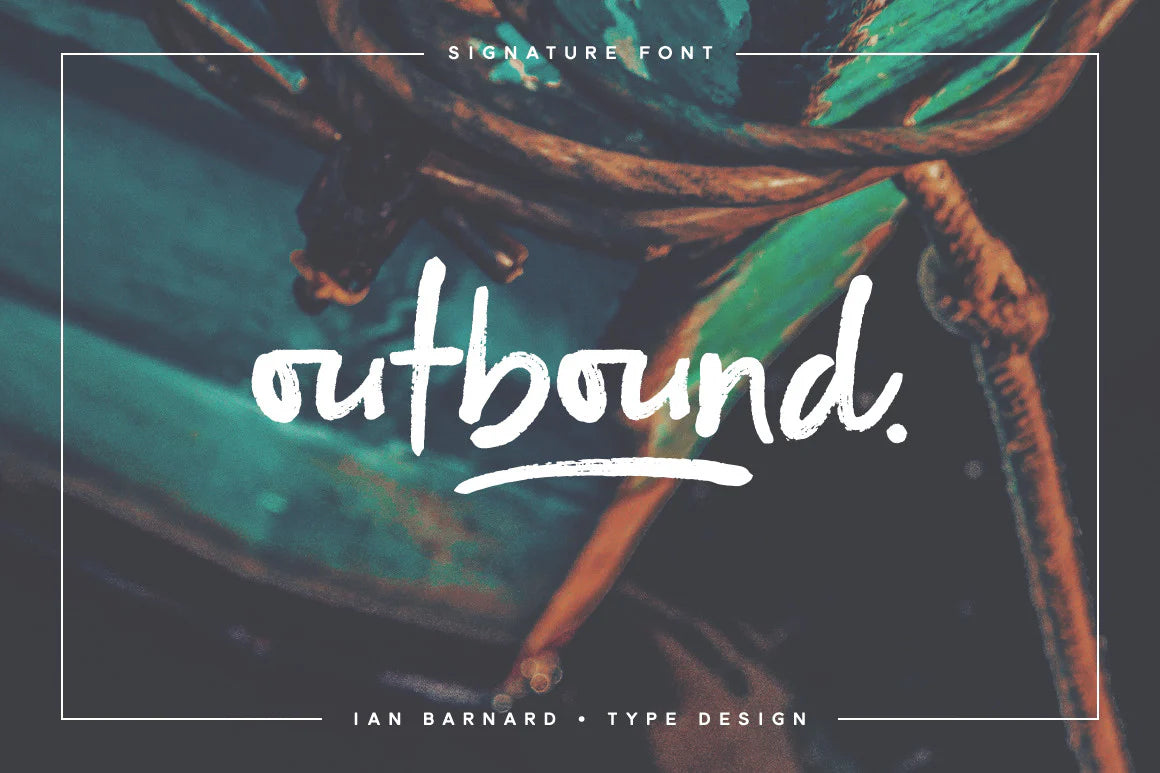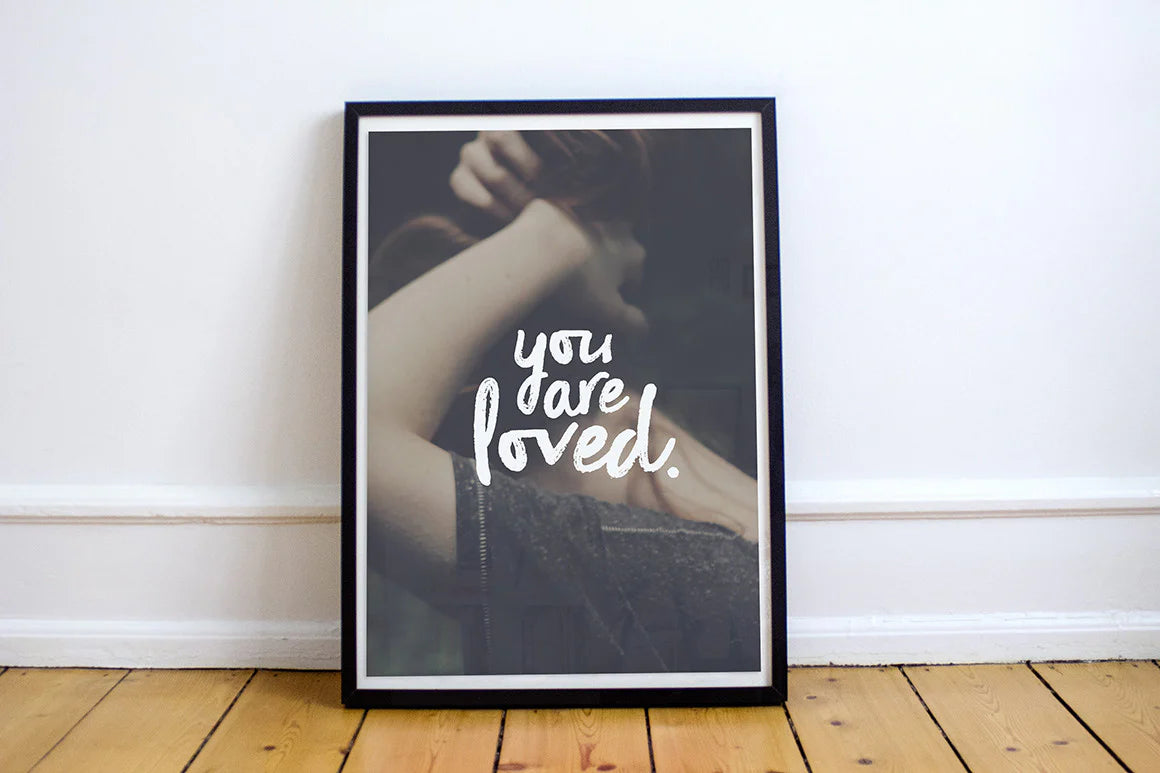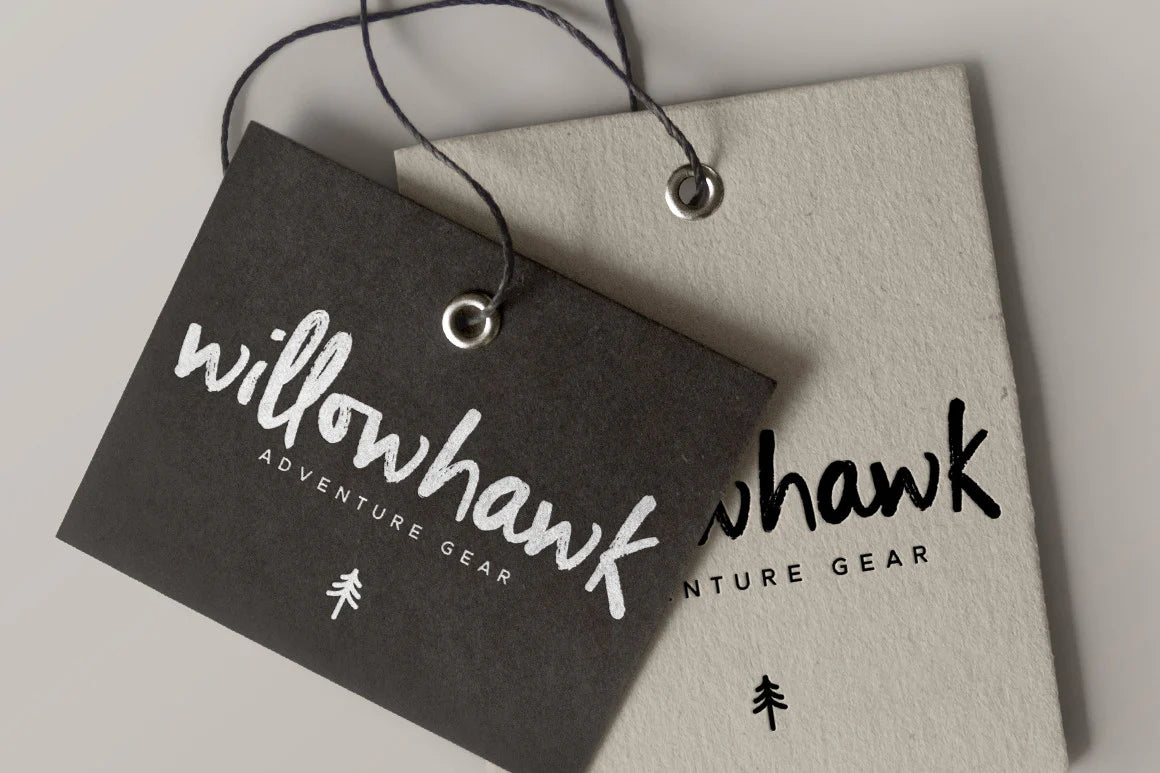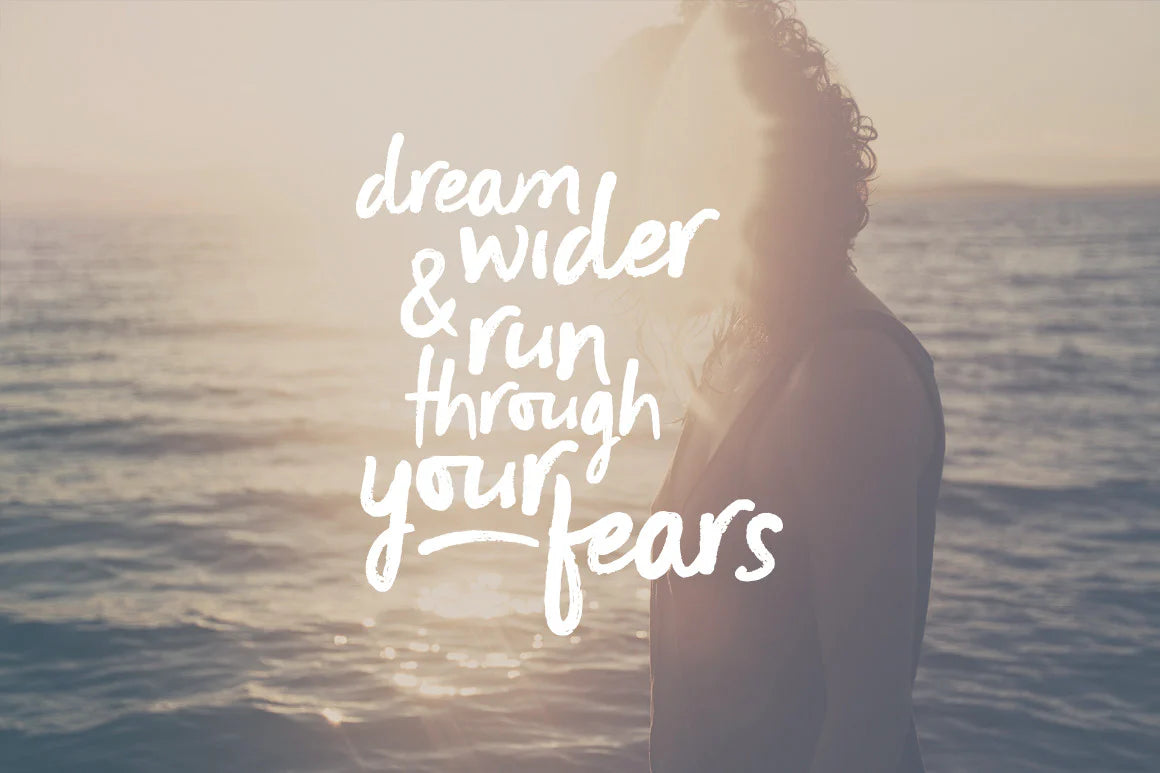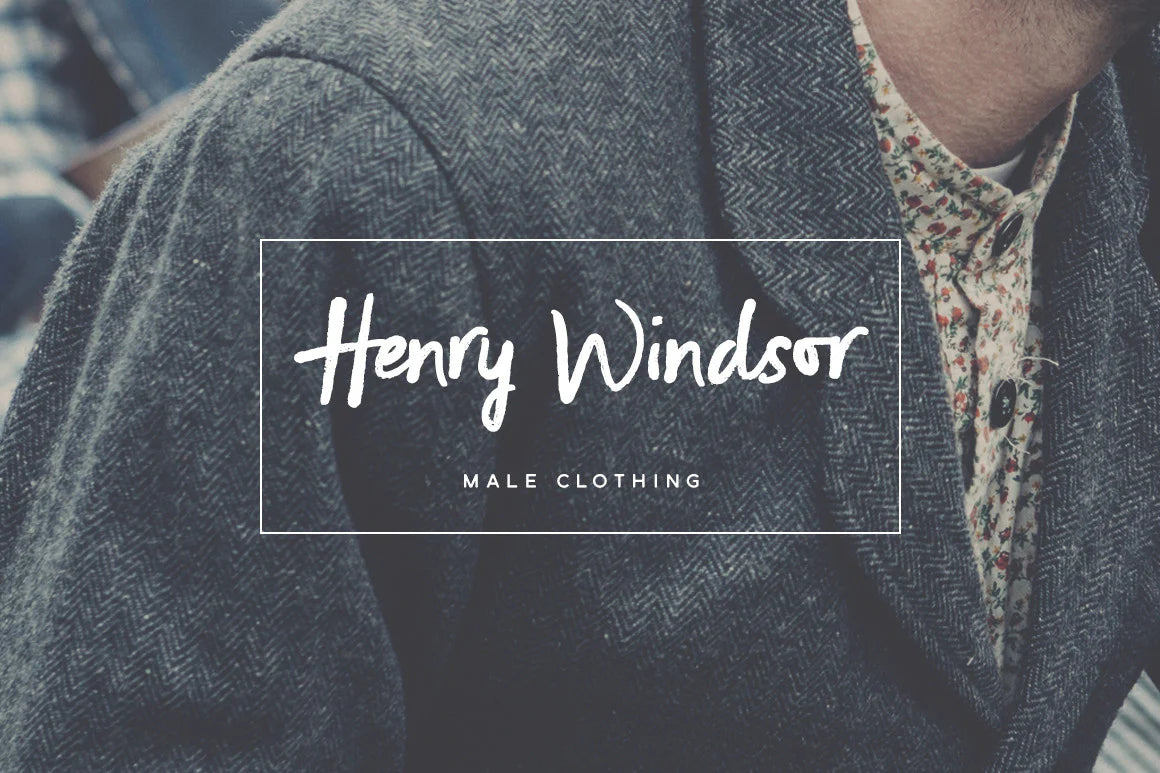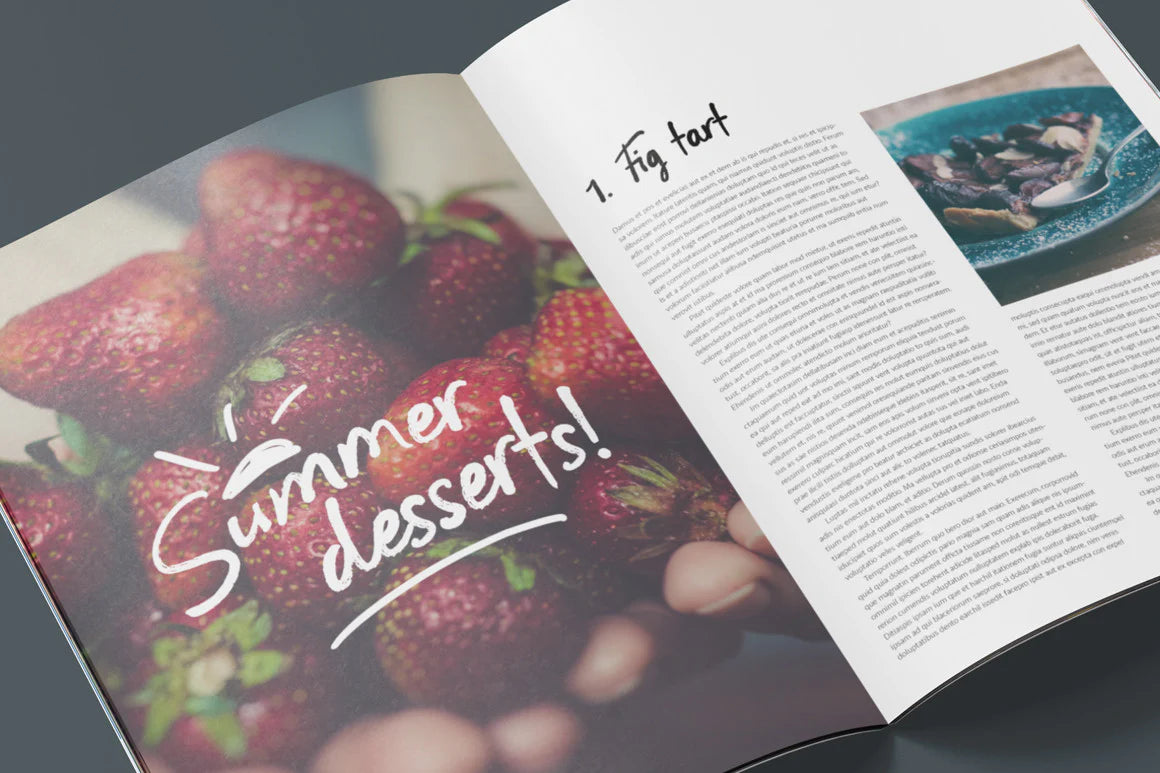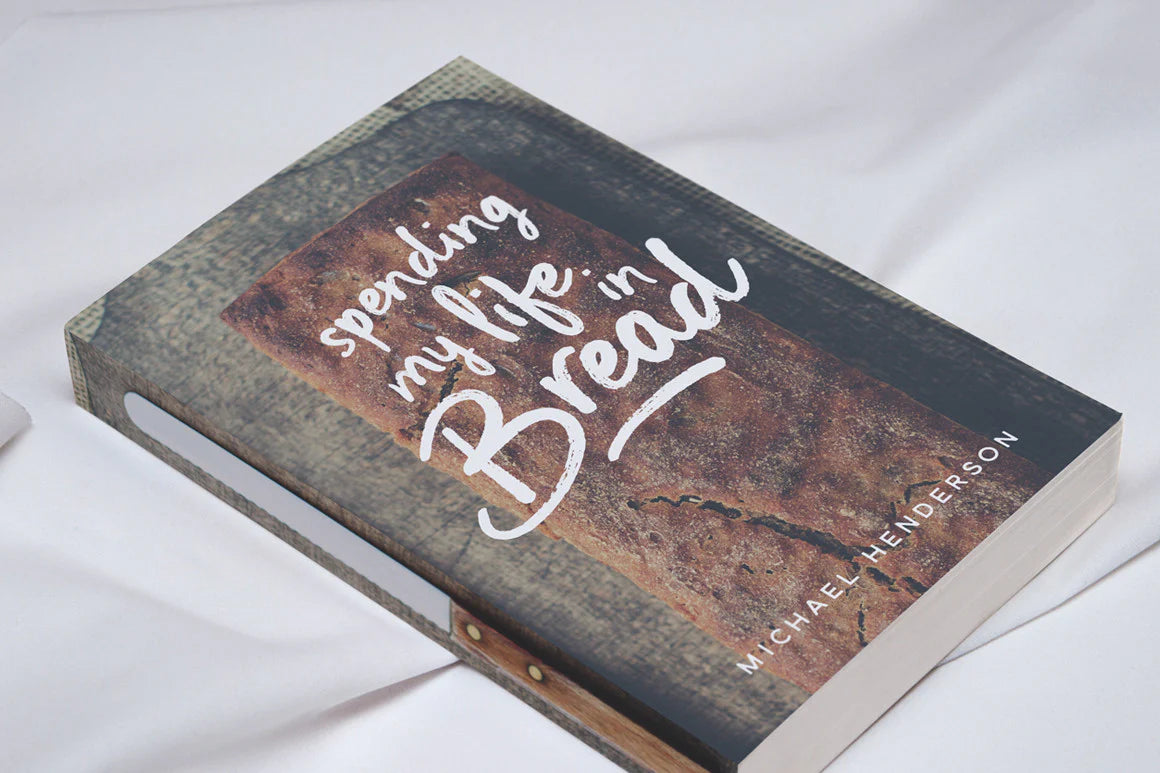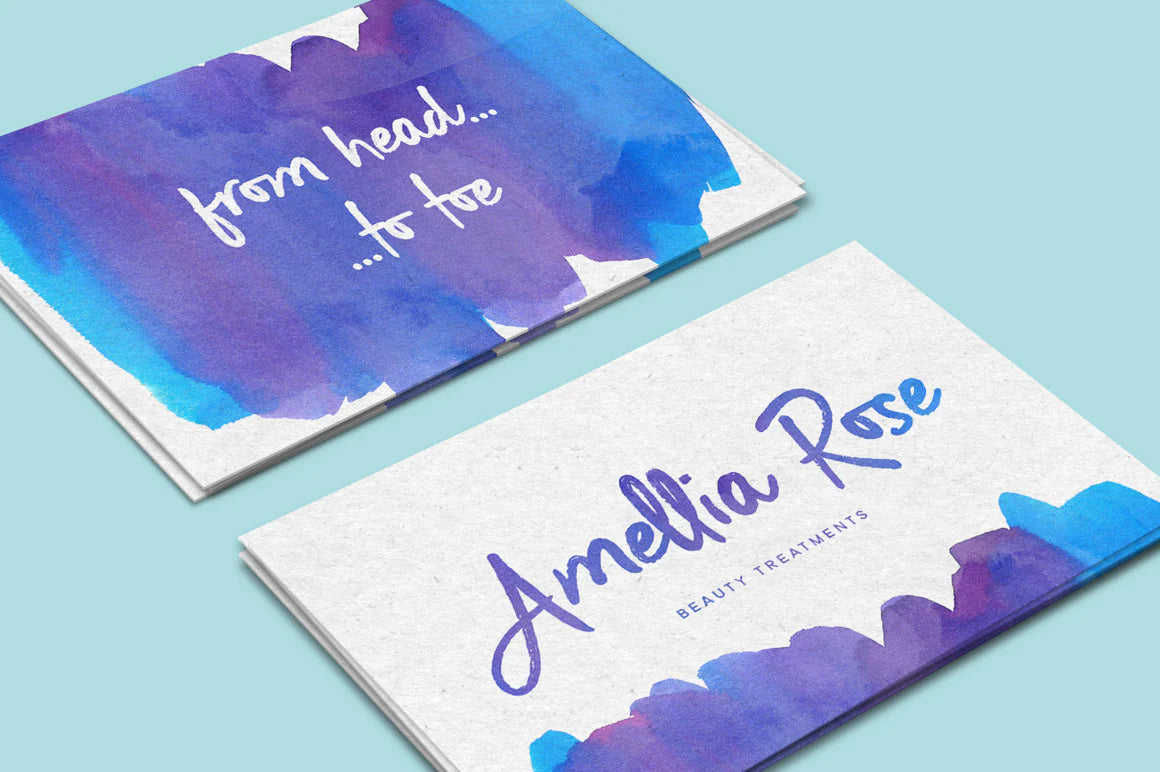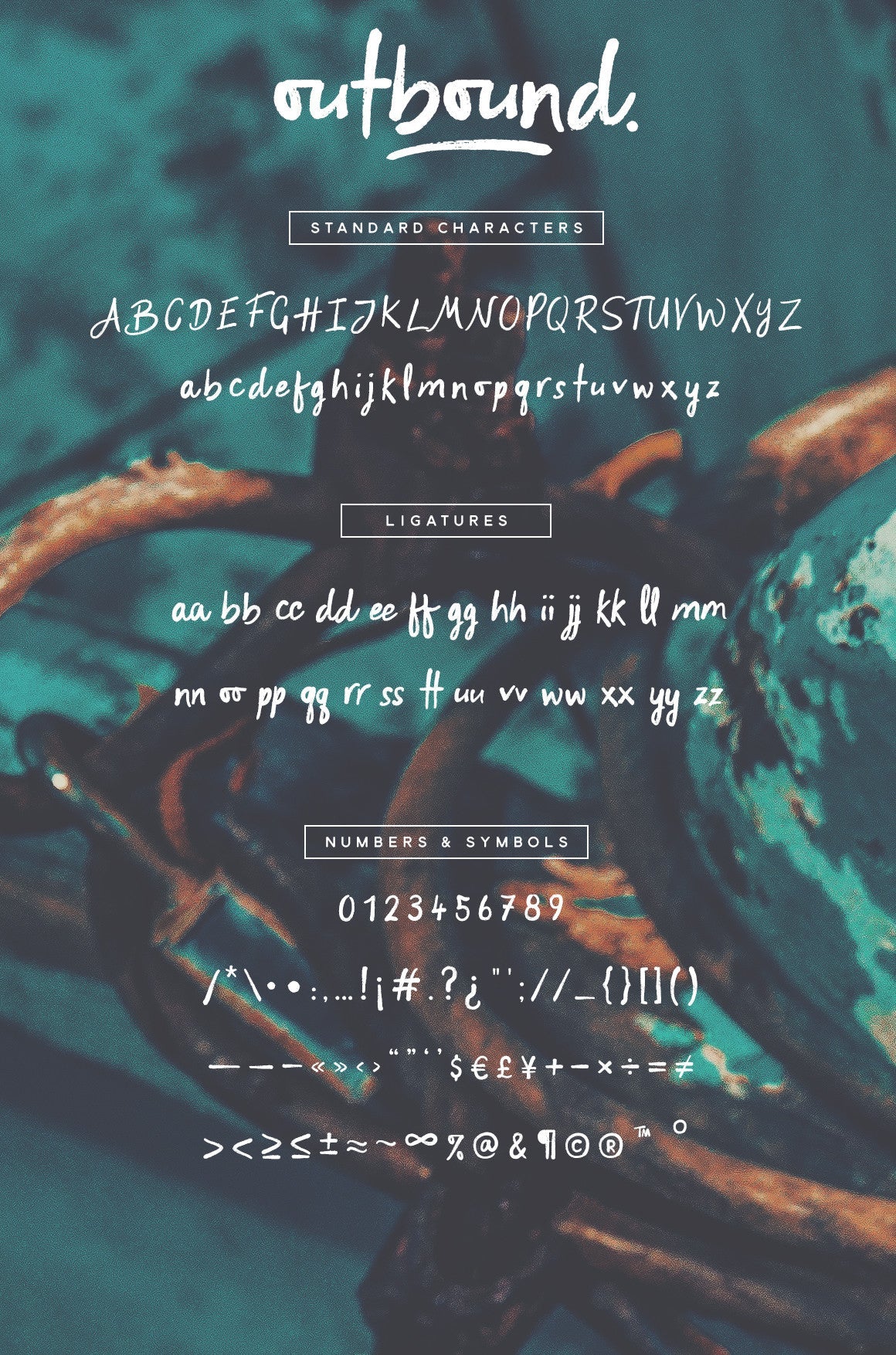
Outbound - A signature style typeface
Created to give that authentically hand drawn look, with subtle textures and uneven baseline. Perfect for logo marks, typographic quotes over photos, book covers and packaging design.
Plus with the opentype feature turned on in your favourite editing programme you get access to the double letter ligatures.